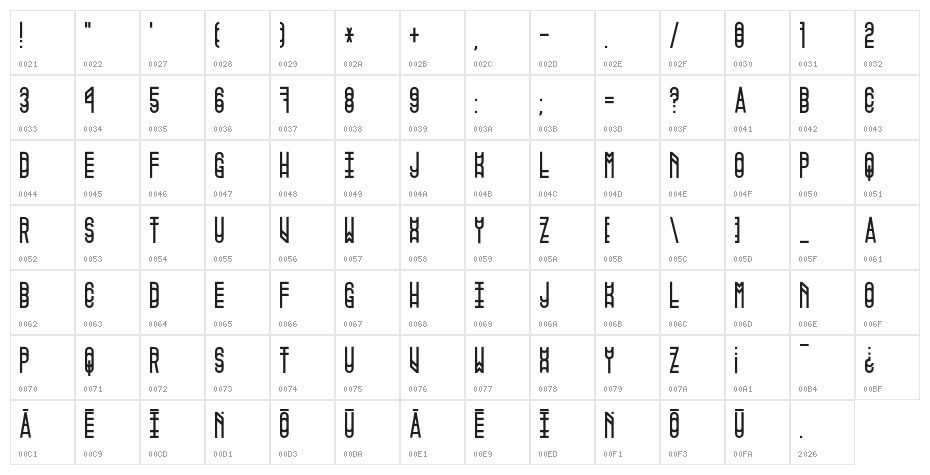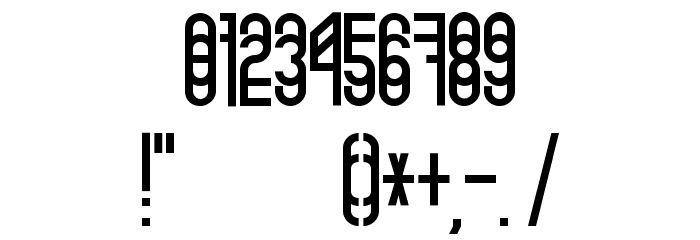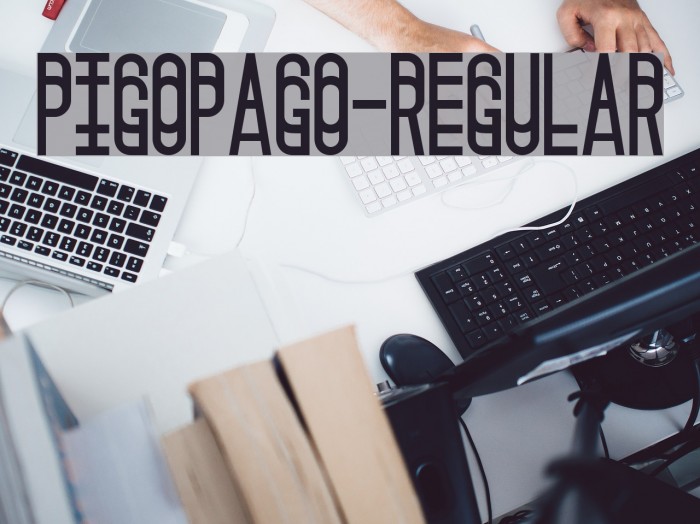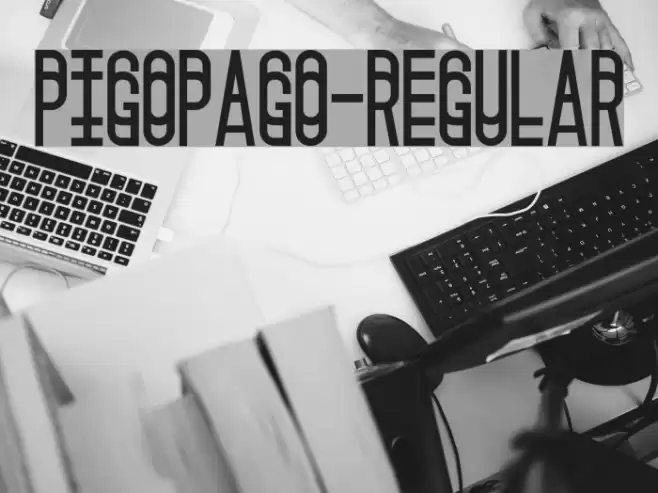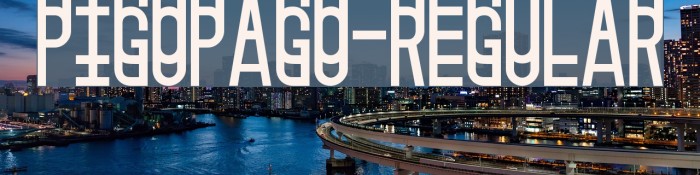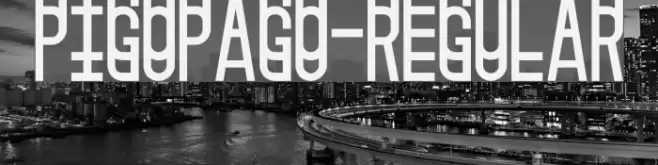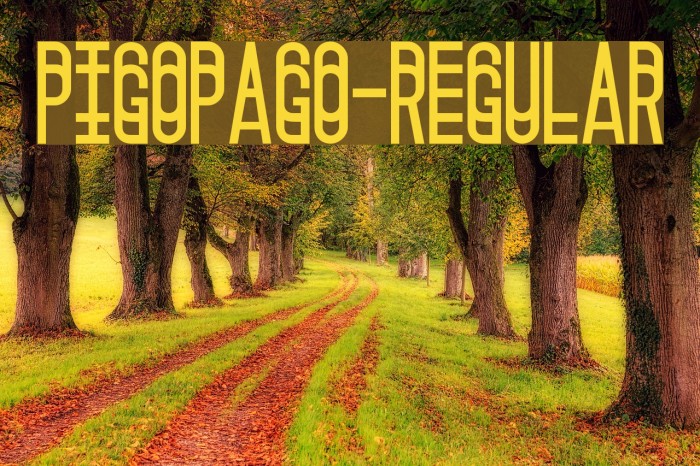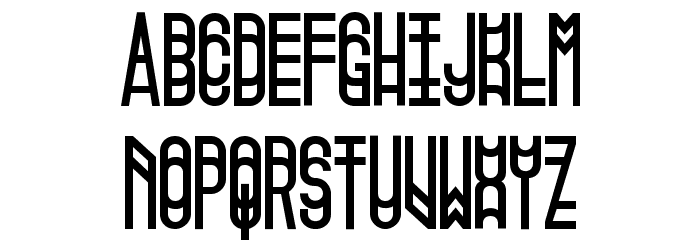
Pigopago-Regular Font
Pigopago-Regular Description
This font features a unique and modern design with a geometric and structured appearance. The characters are composed of straight lines and angles, creating a futuristic and digital feel. The uppercase and lowercase letters maintain a consistent height, contributing to a uniform look. The numerals and special characters follow the same design principles, ensuring a cohesive style throughout. The font's distinctiveness lies in its bold, linear forms, making it stand out in any application.
| Proposed Projects | Ideal for tech-related branding, digital media, futuristic posters, and modern graphic design projects. |